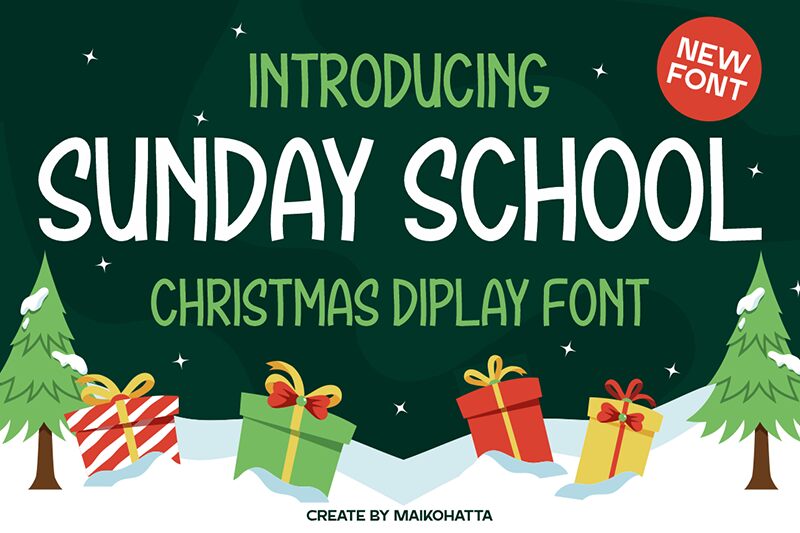
SUNDAY SCHOOL
Sunday School font is a cartoon display font designed by Gilang Ternadho. A rough texture and hand-drawn feel characterizes the casual aesthetic of this typeface. The baseline of the glyphs is irregular, and some letters go beyond others.
With thick strokes additions for personality, this free visual asset can be used for children’s books, greeting cards covers, invitation cards designs, posters headers, logos design projects as well as game and movie titles designed to entertain kids and more specific audiences.